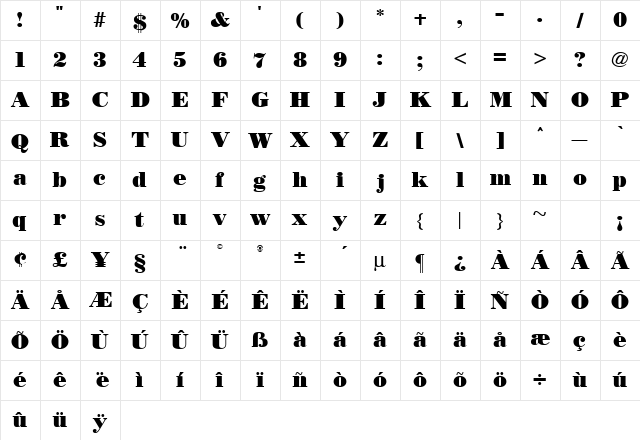
Teton Bold Regular
Design Context for Teton Bold Typeface
Teton Bold is a composed and adaptable typeface that performs quietly and consistently across a wide range of design contexts. Its bold stroke weight gives it real presence on the page.
Pro Tip: Use Teton Bold in both headline and body roles to test its range before committing to a single application.